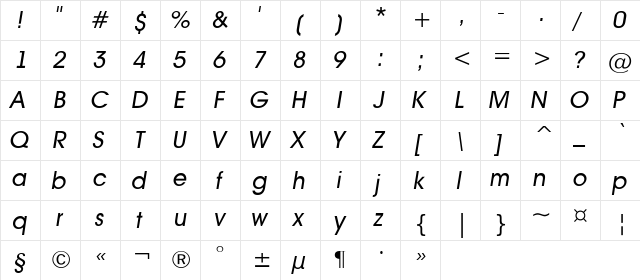
a_AvanteBs Italic
Design Context for a_AvanteBs Typeface
a_AvanteBs takes a measured approach to typography — its balanced proportions and neutral character make it a reliable workhorse for both digital and print work. Its italic angle brings a sense of urgency and motion to the letterforms.
Pro Tip: Use a_AvanteBs for emphasis, pull quotes, and subheadings where its slanted energy can add rhythm to the layout.